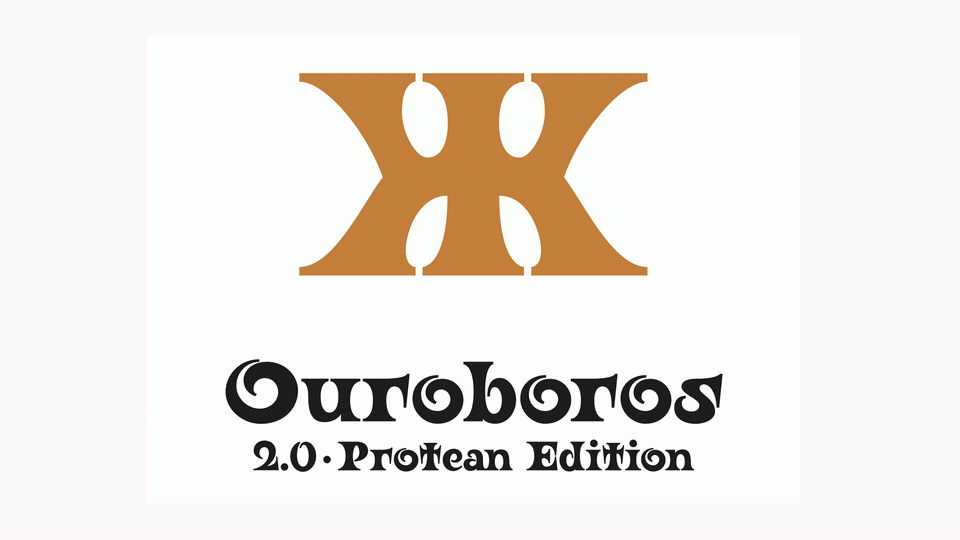
Download Ouroboros font, a typeface for alchemists, witches, heretics, outsiders and other curious people in general. Ouroboros font inspired by early art-nouveau styles, which were sometimes used in relation with magical themes and symbolism.
Designer: Ariel Martín Pérez